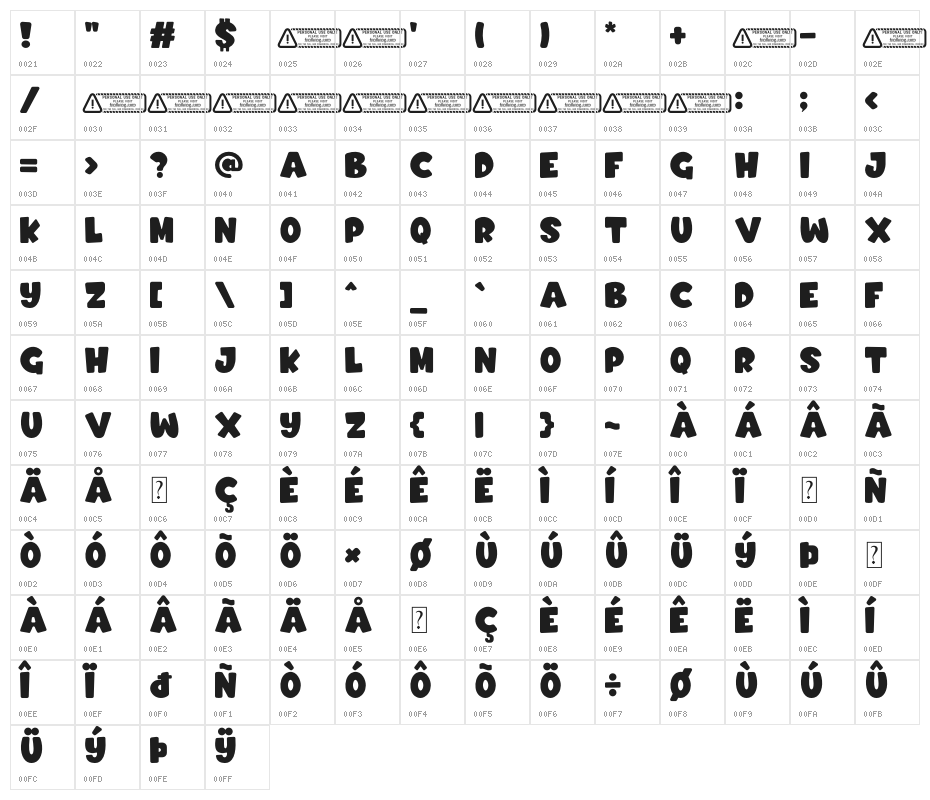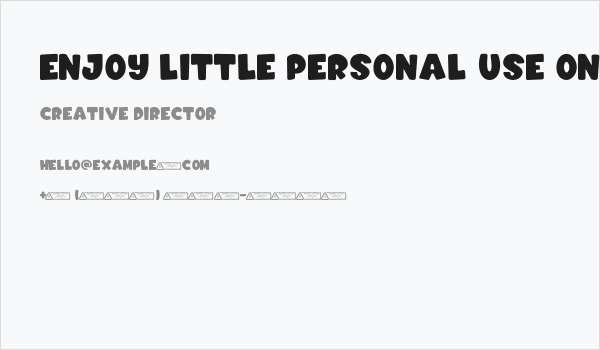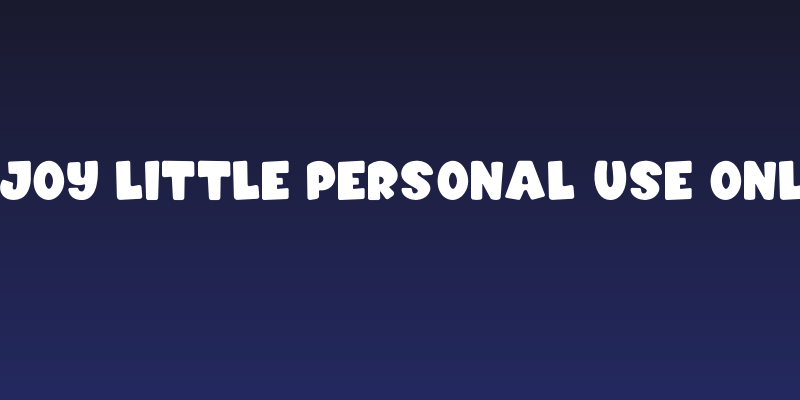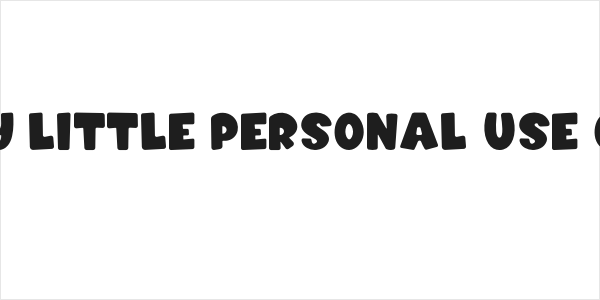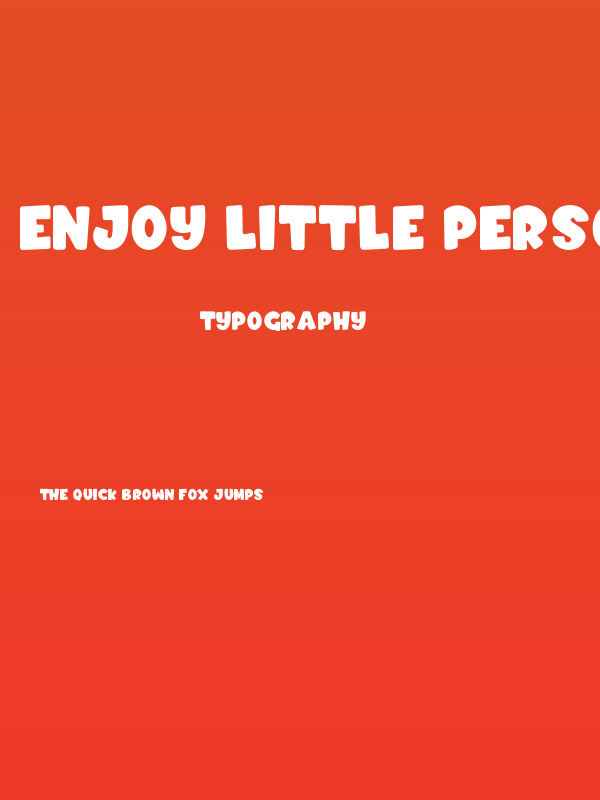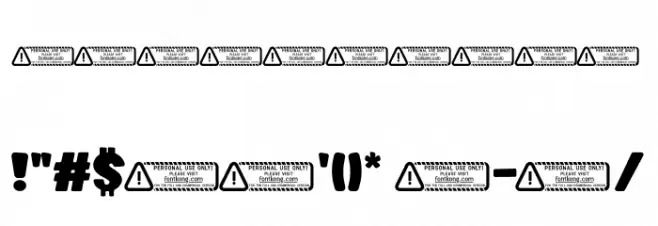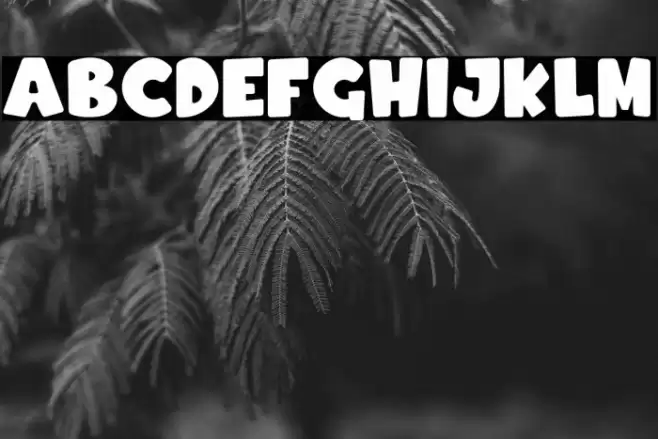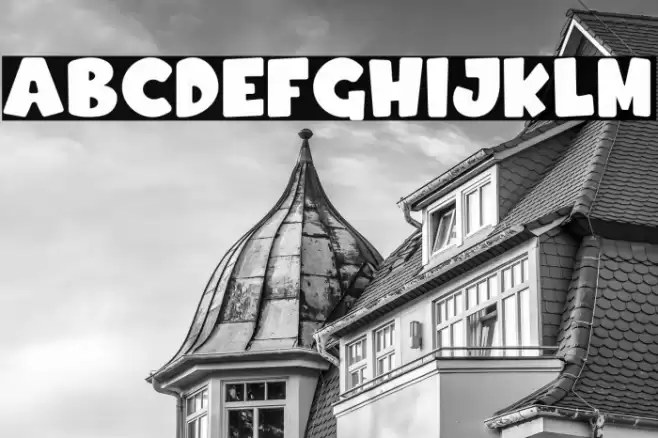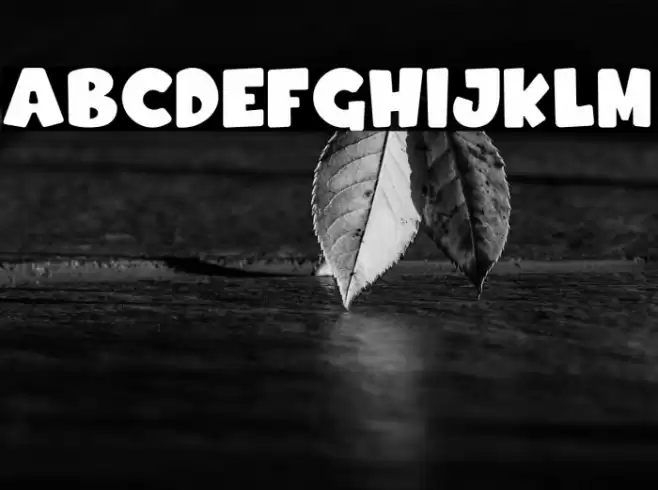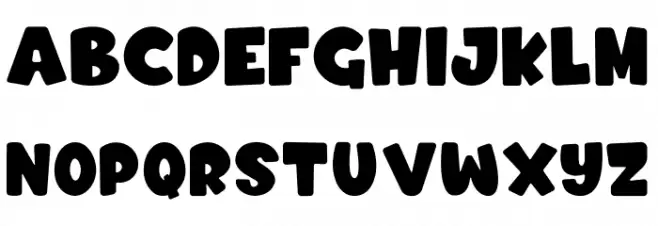
Enjoy Little PERSONAL USE ONLY! Font
Enjoy Little PERSONAL USE ONLY! Description
This playful and bold font features thick, rounded letters that convey a sense of fun and whimsy. Each character is designed with a slightly irregular shape, adding to its casual and approachable feel. The uppercase and lowercase letters maintain a consistent style, making it suitable for projects that require a friendly and informal tone. The font includes a variety of special characters, enhancing its versatility for creative designs. Its boldness ensures high visibility, making it ideal for eye-catching headlines or titles.
| Proposed Projects | Perfect for children's books, playful branding, party invitations, and casual social media graphics. |